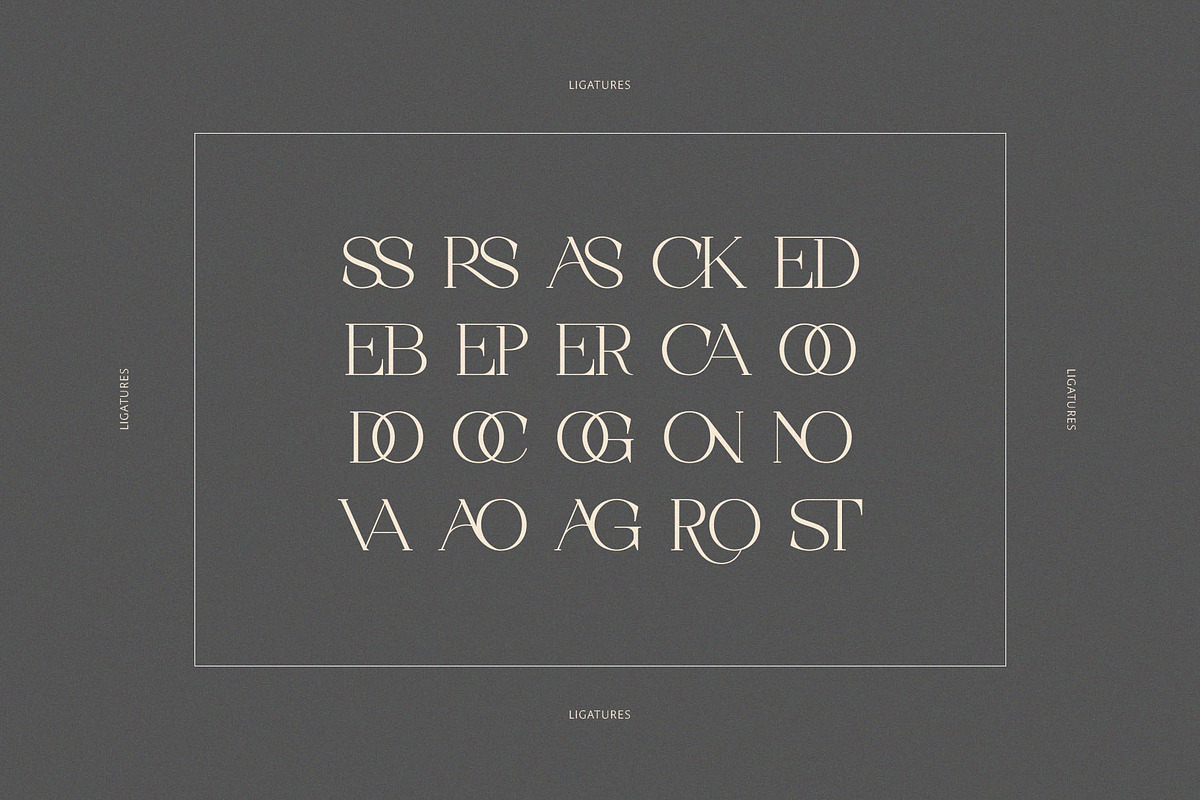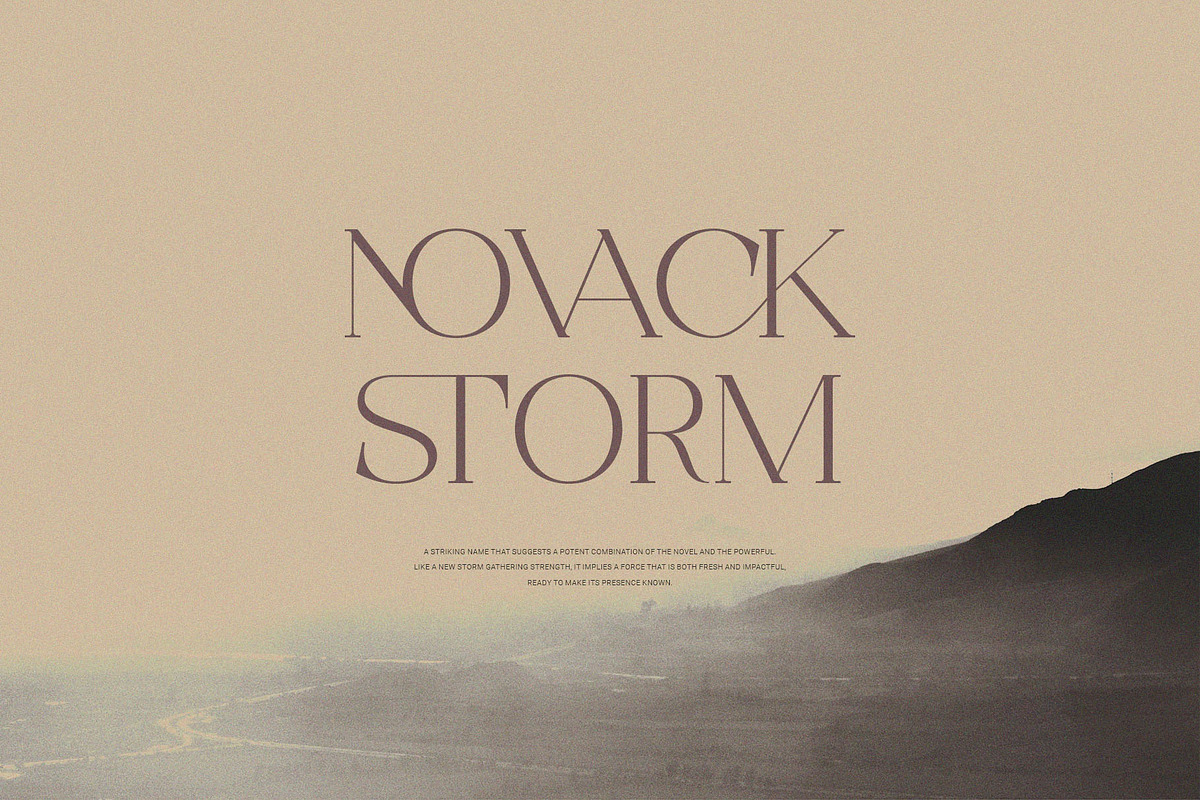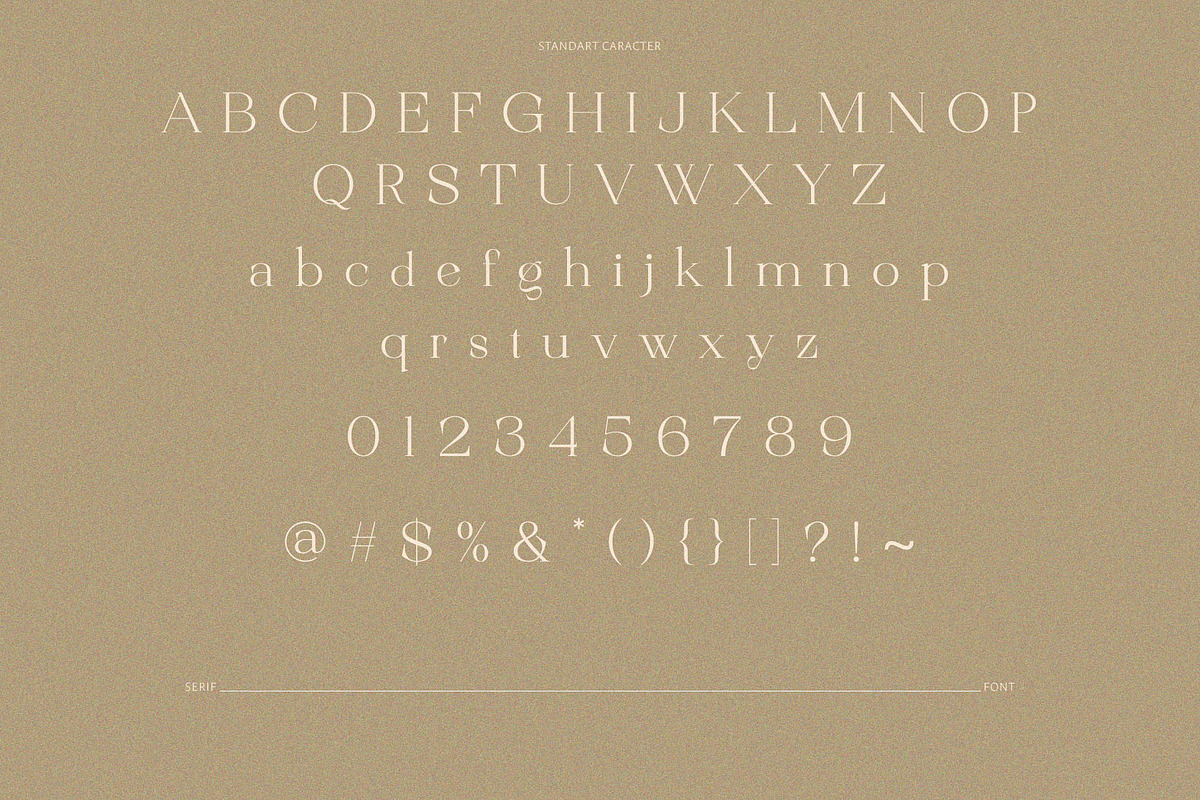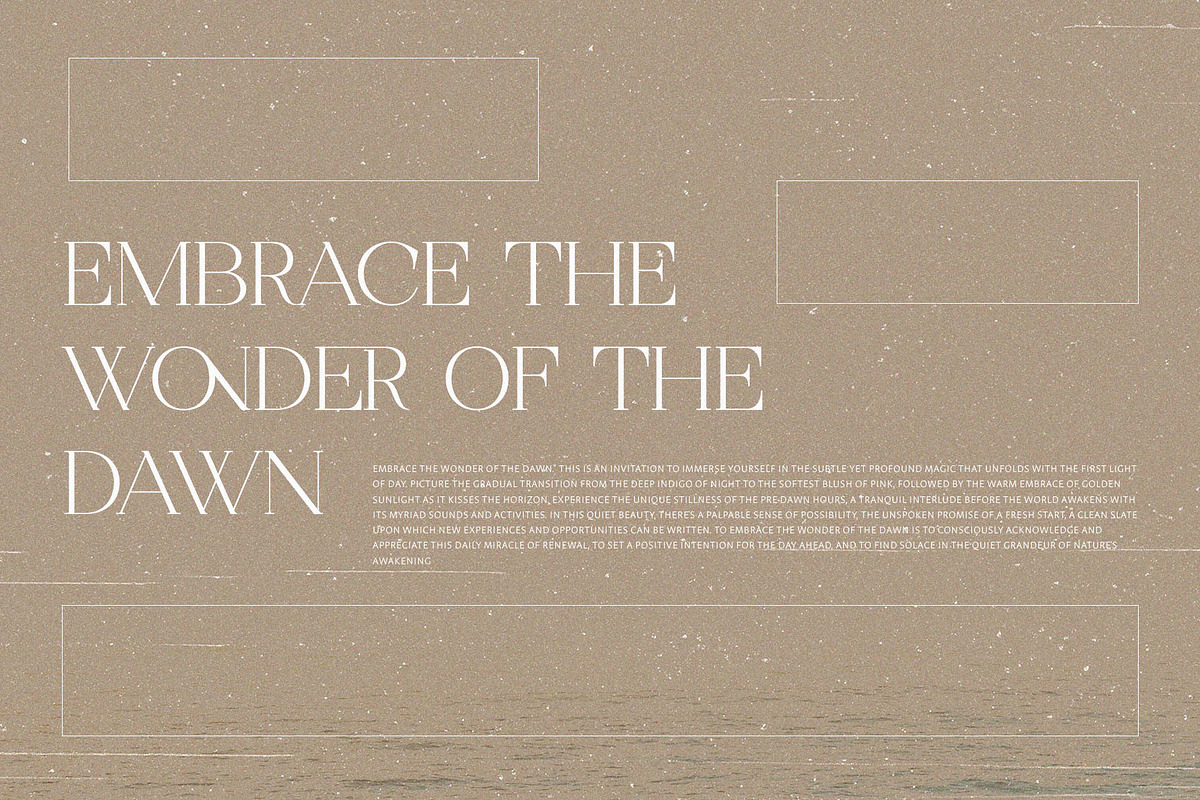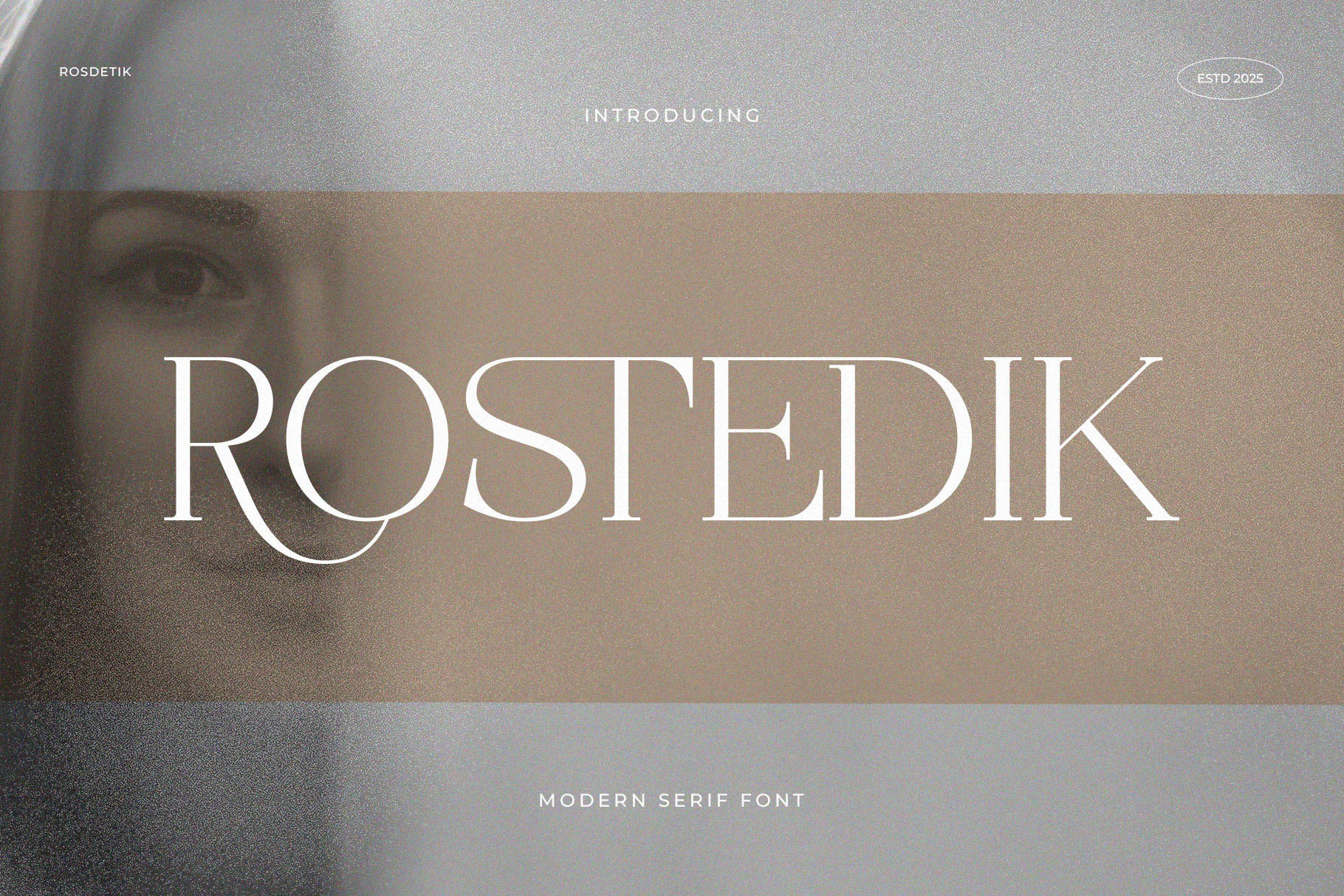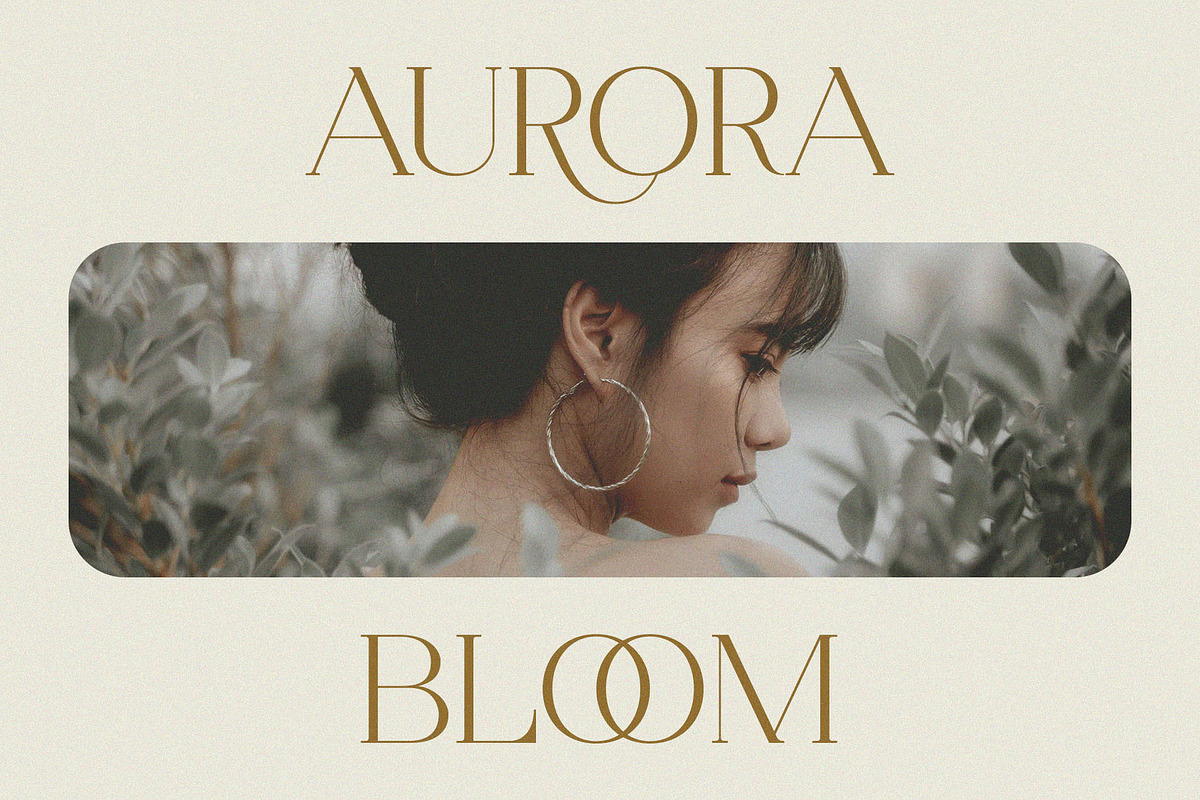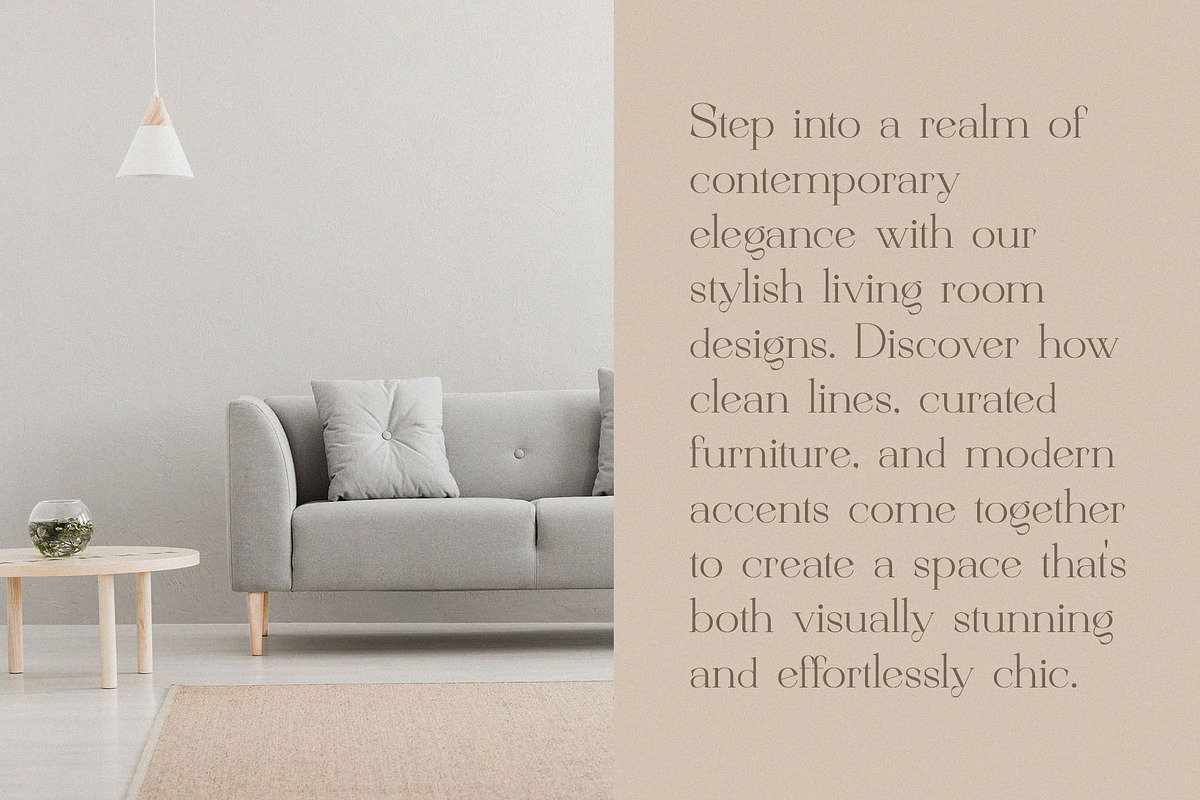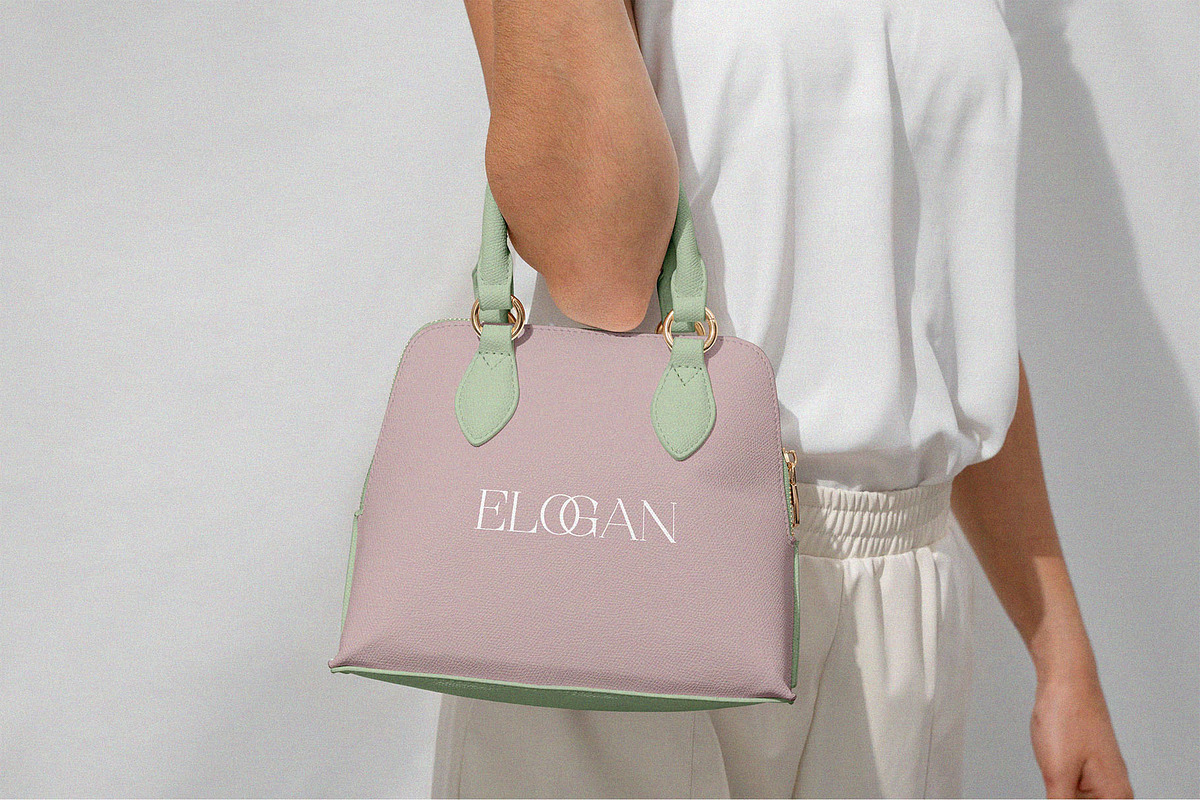
Rostedik – Modern Display Serif Font
Introducing Rostedik Modern Display Serif Font. Rostedik is a modern and classy typeface, best used as a display for headings, logos, branding, magazines, product packaging and invitations. Rostedik come with clean lines and smooth curves give any project an extra touch of class.